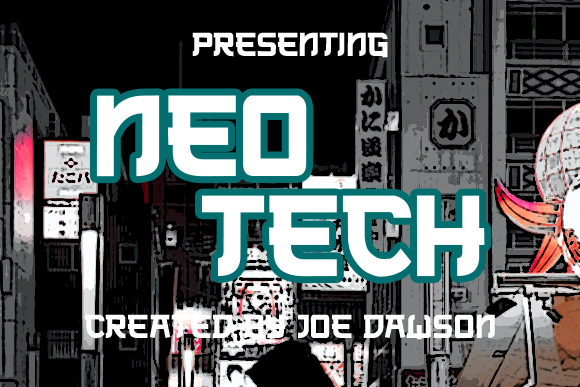
Preview and download Neo Tech Font. Created by Joseph Dawson in Foreign look Chinese, Jpn styles with Donationware license.
Neo Tech is a modern, Asian-inspired display font. With it�s smooth curves and sharp angles, this font will make your designs stand out. This font is for personal use ONLY ... although donations are appreciated! Kindly give as much as you honestly feel the font is worth to you. Paypal account for donation: dawsonjoseph333@gmail.com For commercial use you must pay $10 USD. Link to purchase a commercial license : https://www.creativefabrica.com/product/neo-tech/ref/236312/ Please visit our store for more great fonts: https://www.creativefabrica.com/ref/236312/ |